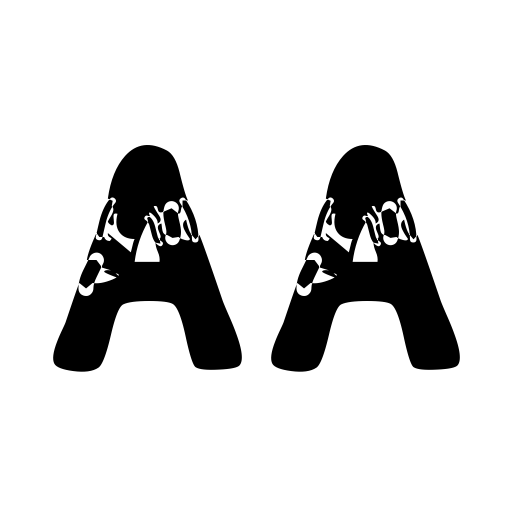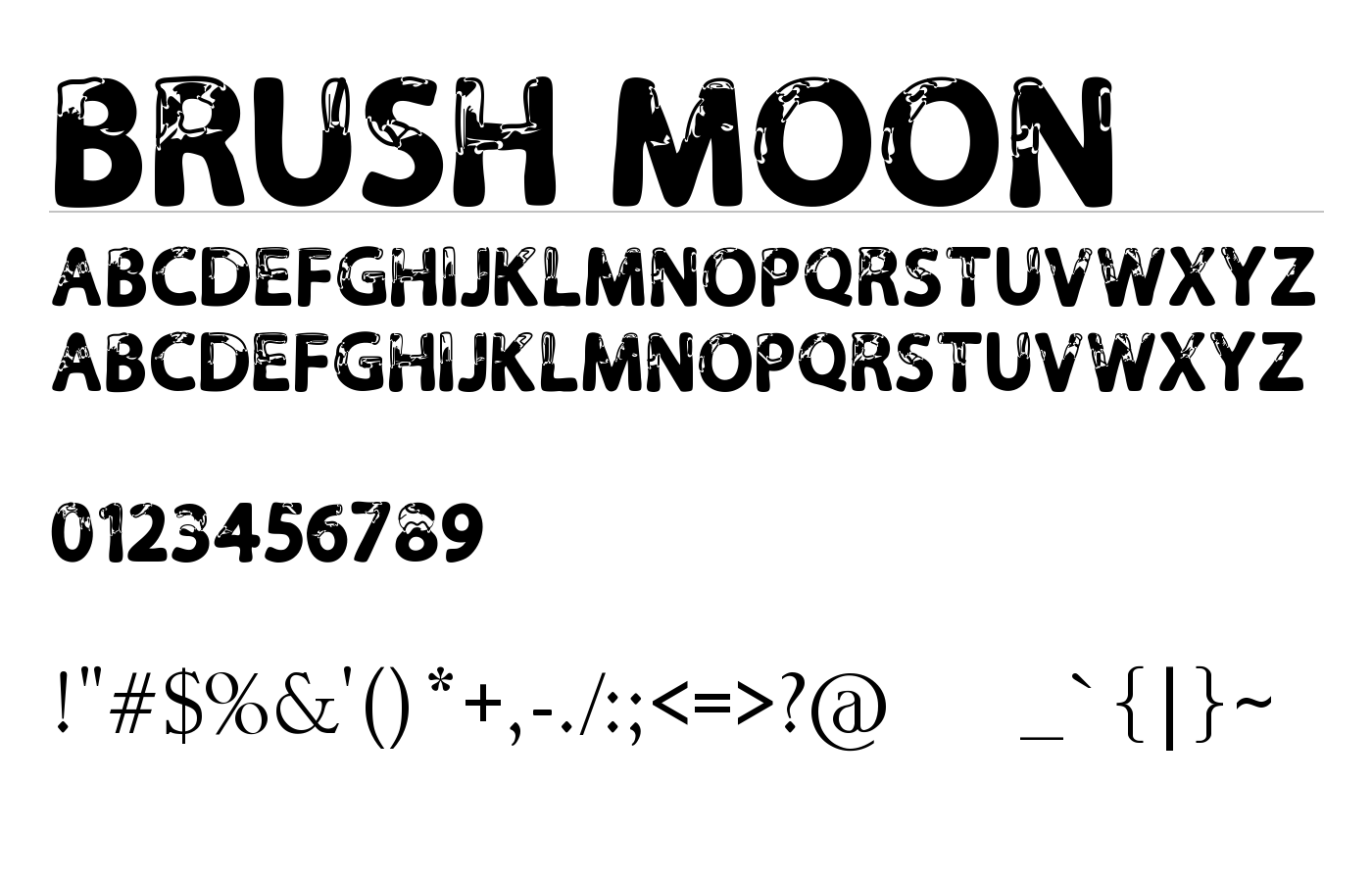
Calla Personal Use Only is a bold, playful sans serif font characterized by its chunky letterforms and unique distressed texture that adds a hand-crafted, vintage brush effect. Its all-caps style with rounded edges and slightly irregular shapes gives it a fun and informal personality, making it perfect for headline use, branding, posters, and packaging where a lively and eye-catching look is desired. This font works well for creative projects that want to convey energy and originality with a touch of retro charm.
Calla Personal Use Only Font
About Calla Personal Use Only Font
| Font family | Calla Personal Use Only Font |
| Designer | Jamel E. Robin |